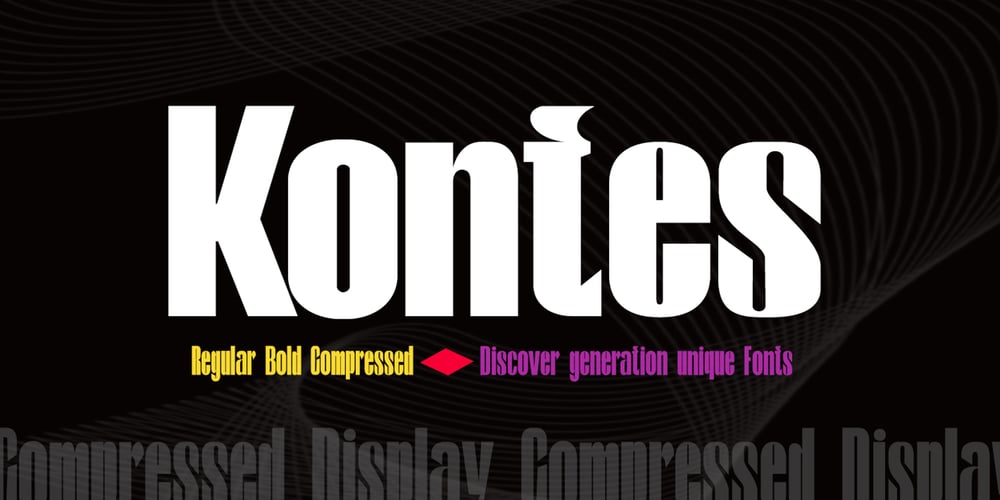
Kontes Compressed Font Family was designed by khaidir and published by Gatype. Kontes Compressed contains 2 styles and family package options. The Compressed Contest font is packaged in a modern font that is unique, elegant, feminine, sensual, glamorous, simple and very easy to read. The classic style is very suitable to be applied in various formal forms such as invitations, labels, menus, logos, fashion, make up, stationery, letterpress, romantic novels, magazines, books, greeting/wedding cards, packaging, labels.Hope you enjoy this font!!